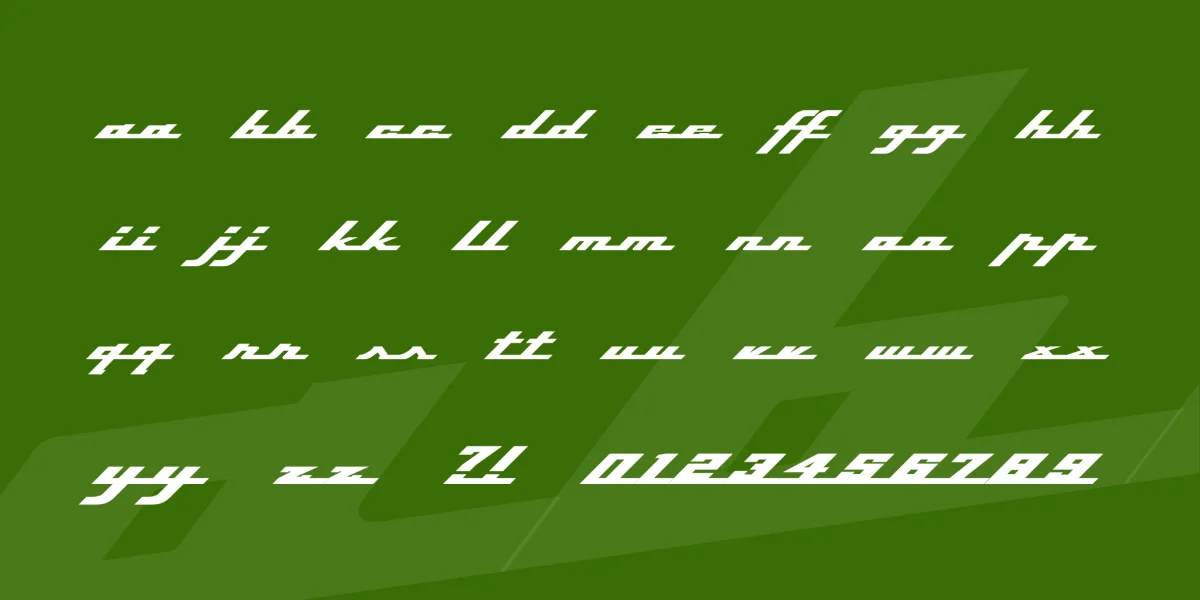
Top Speed Version 1.41Released as Shareware December 1997Copyright 1997 Jason VanderhillTop Speed is inspired by a certain metal badge seen on the flanks of the finest coachbuilt automobiles in the world. It is a complete alphabet, albeit all lower case at the moment, based on the letters p, i, n, f, a, and r.Top Speed Version 1.41 is currently available as shareware. For $10, you are entitled to a single-user licence for Top Speed Normal, Top Speed Outline, and Top Speed Heavy.Please send a cheque or money order to: Jason Vanderhill R.R. #1 Dorchester, ON N0L 1G4 canadaFeel free to email me at
Top Speed is strictly a display typeface, and should be used for no more than one line--preferably only one or two words--at a time. The most distinctive feature of Top Speed is the fact that all the letterforms are connected to each other. To maintain this look, all the characters have tails. The forward-slash character (and underline character) can be inserted between words instead of using the space bar, maintaining the continuous baseline. The back-slash character is a somewhat shorter connector; the '|' key is a slightly longer connector. To begin your word or line of text, you should insert a small version of the baseline, which is the "<" character. This will start off your type with an appropriate "tail." To finish off your line of type, use the ">" character, as it will end your tail at the appropriate distance. These characters are more necessary in the Outline version of the font. Top Speed may require minor kerning adjustment with some characters. Because each letter must be placed EXACTLY next to the following letter, (Top Speed Normal and Heavy are slightly more forgiving) you might notice a sliver appear between an occasional pair of letters. There are no differences in the capital letters except for the letter F. The capital letter F does not continue along the baseline, but instead it can run into certain letters (typically, the a, o, or u) through it's horizontal crossed stroke. The Outline version of the capital F contains an extra bit of black. This fills up the "hole" left at the beginning of the next character. If the capital F is used to end a word or sentence using Top Speed Outline, that little speck will have to somehow be creatively covered up.Top Speed is my first computer designed typeface. It was created completely in CorelDraw 7. Since this was my first font, I did stumble through the whole process a bit, and as a result, it does contain the odd imperfection. For example, I am not sure how to get my apostrophes and quotation marks to work. Currently, the null character is inserted instead. In a way, it's a bit of a handmade product. I began the font in the spring, basically ignored it all summer, and then finished it in the fall. Mostly, it has been fun. I hope you enjoy it.